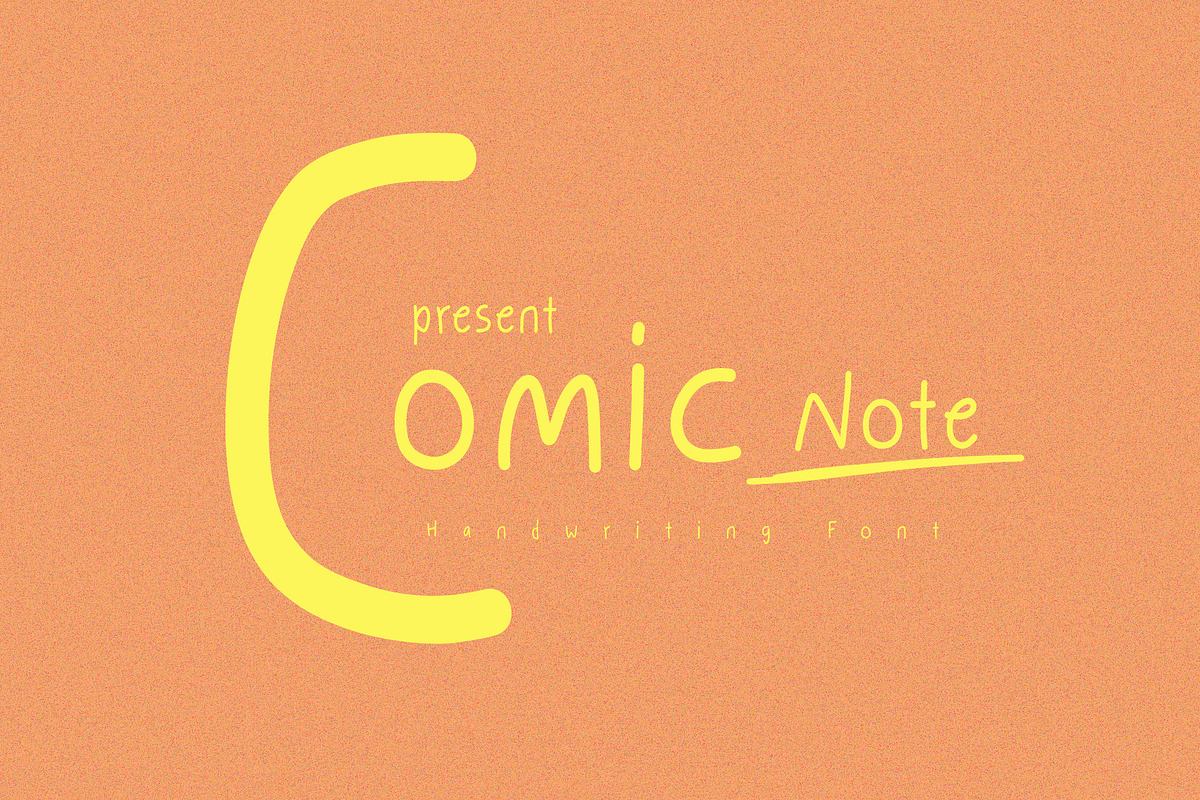
Comic Note a Handwriting Font Free Download
Comic Note – A Handwriting Font Free Download is a fun, casual, and friendly typeface that mimics the look of quick handwritten notes with a comic-style twist. Please note: you must purchase this font for commercial use, but you can test it through a free download. With its playful strokes and relaxed structure, Comic Note is perfect for planners, classroom materials, comics, kids' content, DIY crafts, and lighthearted branding.
This font brings approachability and fun to your typography—ideal for creators who want to keep things informal, cheerful, and easy to read. Whether you're making journaling printables or designing educational graphics, Comic Note – A Handwriting Font Free Download gives your project a handwritten feel with extra personality. Fully compatible with Adobe Illustrator, Photoshop, Canva, and more. Download it today for personal use and add a casual, creative touch with Comic Note.